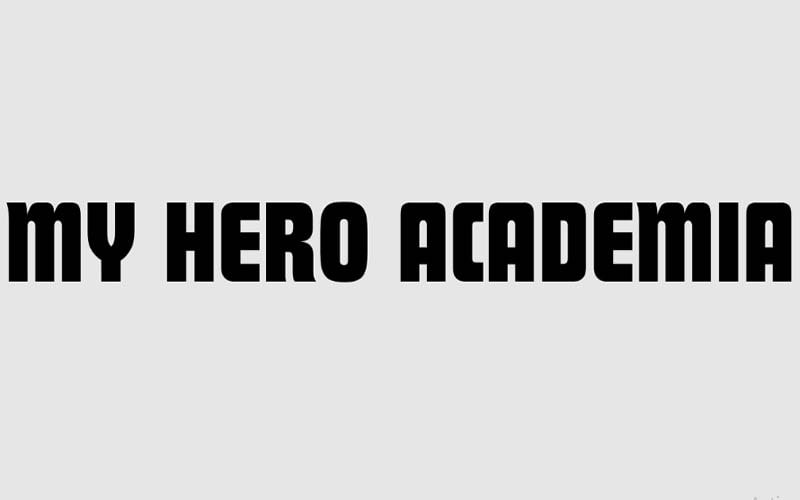
Display Logo Typeface
Introducing to you a new font, My Hero Academia Logo Font which is a Japanese superhero manga series that was first released in July 2014. This display font was designed by Kohei Horikoshi and published by Shueisha.
It comes in only one style, Regular with unique letterforms. It received tremendous success and popularity after its release. Because of this, Bonus Inc. has decided to make the moving studio a Hollywood cartoon on it.
It will provide a new fresh look with decorative characters in the designs where you apply it. Because all the designs made with its help have a unique or elegant bold texture style.
This is one of the best superhero fonts on the market for comics. We have classic superhero comic fonts that we use, long, wide, and a little bit more advanced, it contains everything superhero comic fonts.
My Hero Academia Logo Font
Therefore, every year they launched one season and earned a good revenue. Many font designers are not only looking for this manga but are also looking forward to its logo and its font family.
The font can be used as an all-rounder for designing everything. For example, designing for custom art, comic dialogues, logos, posters, banner ads, brochures, printing official cards, birthday cards, and so on.